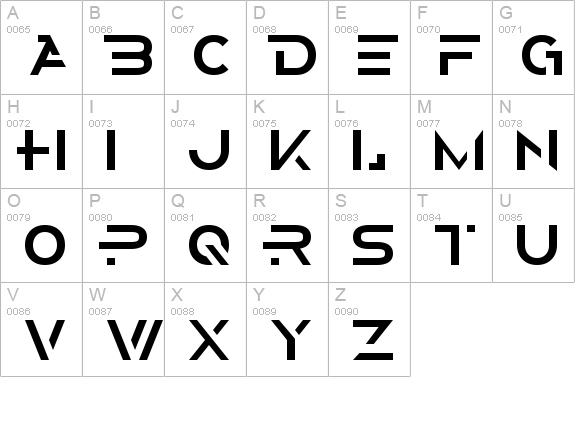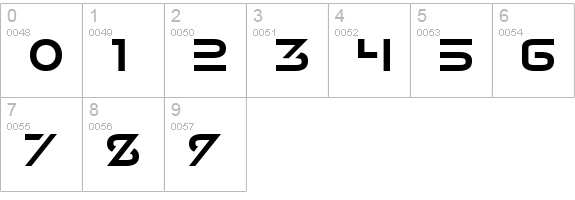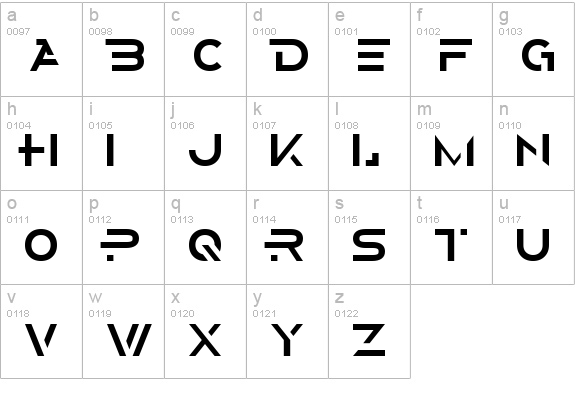
Alternity font is a stylish and modern typeface that exudes sophistication and elegance. With its sleek lines and contemporary design, Alternity is perfect for a wide range of design projects, from branding to editorial design. This versatile font is highly legible and works well in both large headlines and body text. What sets Alternity font apart is that it is available for free download at FontsMarket.com. This means that you can easily access this high-quality font without any cost, making it a valuable addition to your font library. Whether you're a designer looking for a new typeface to elevate your projects or a business owner searching for a polished font for your branding materials, Alternity font is a fantastic choice that won't break the bank. Don't miss out on the opportunity to enhance your designs with Alternity font. Download it for free today at FontsMarket.com and see how this font can take your projects to the next level.